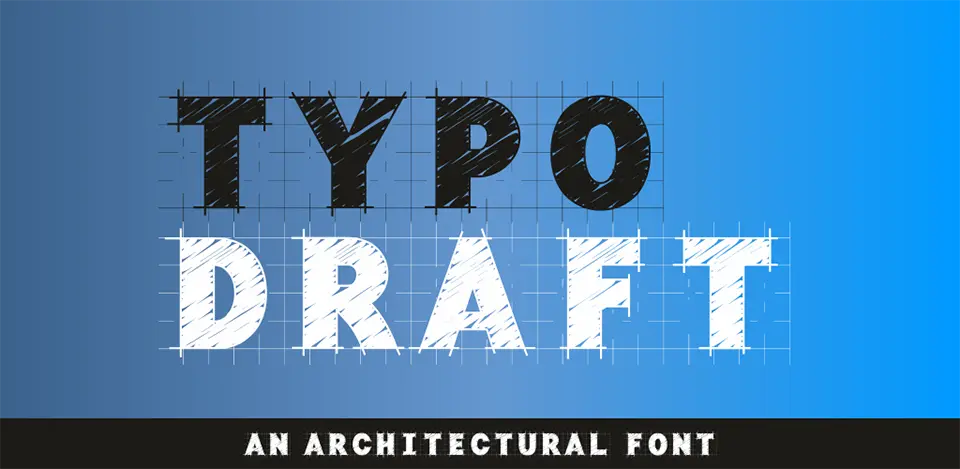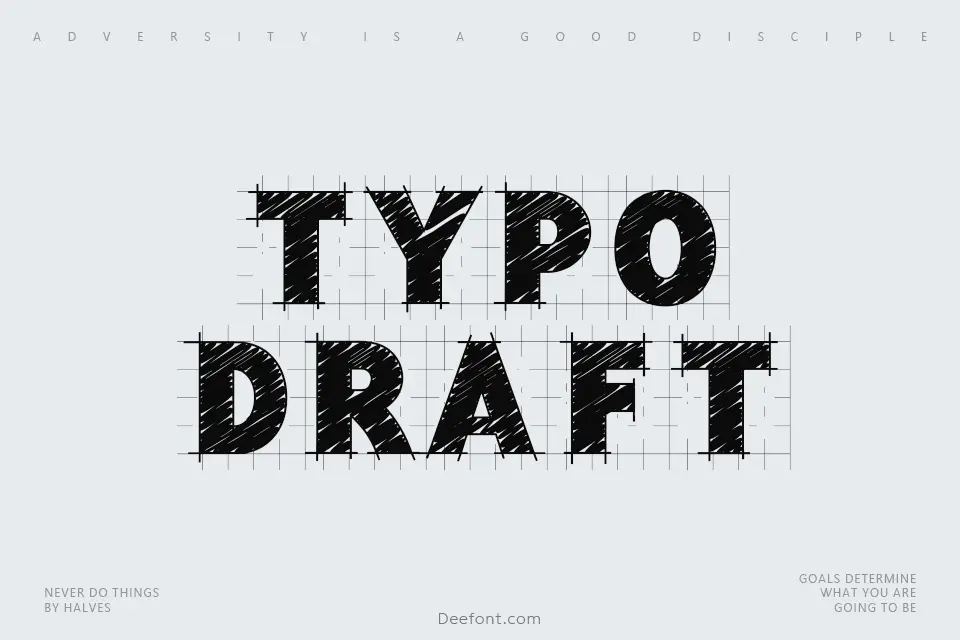
Typo Draft Font
Typo Draft Font is a technical-style typeface designed to emulate the precise aesthetic of architectural blueprints or engineering drafts. Created by StudioTypo in 2019, this font features a hand-drawn, grid-aligned design with crosshatched textures and irregular strokes, giving it a raw, industrial edge. Its geometric characters and monospaced structure make it ideal for technical diagrams, architectural presentations, or projects requiring a mechanical, blueprint-inspired aesthetic. The free demo version includes basic glyphs and supports personal use, while commercial licensing requires direct purchase from the designer. Popular in design communities, Typo Draft balances functionality with a distinctive sketch-like quality, offering versatility for both creative and industrial applications.